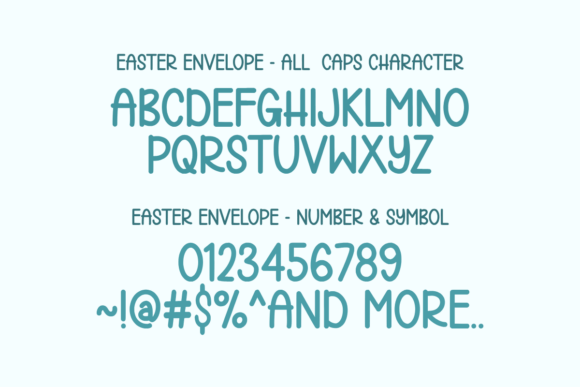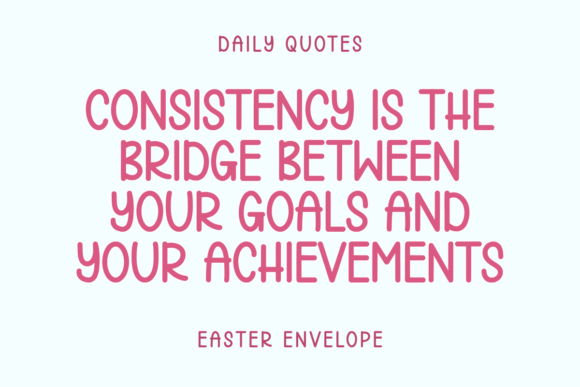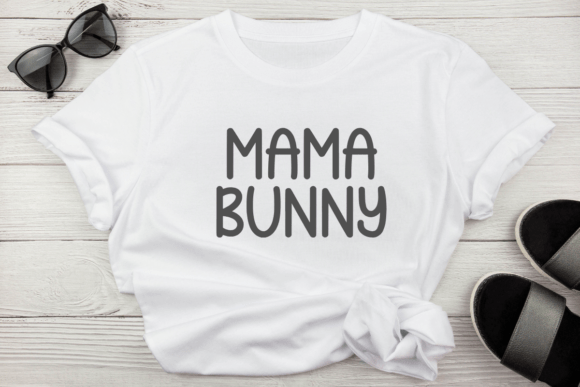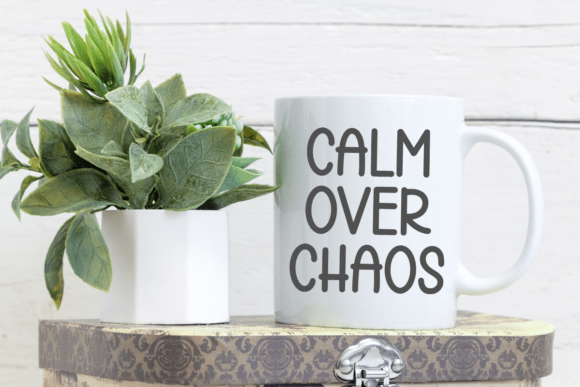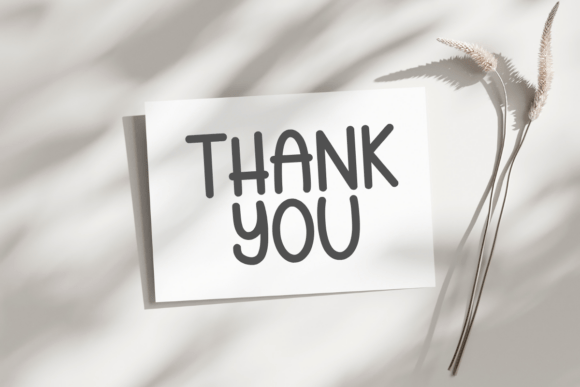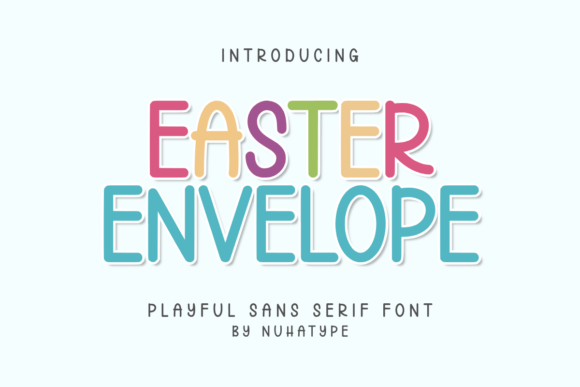
Easter Envelope Font: Elevate Your Designs with Elegant Minimalism
Are you a designer or crafter looking for a font that can add a touch of elegance and simplicity to your projects? Look no further than the Easter Envelope Font. This beautifully crafted font is designed to bring a sense of understated charm to a wide range of designs, from planners and journals to stickers, labels, and inspiring quotes.
The Characteristics of Easter Envelope Font
Easter Envelope Font is an elegantly minimalist, thin sans serif font that mirrors the charm of natural handwriting. Its delicate lines and curves create a sense of fluidity and movement, making it perfect for designs that require a touch of sophistication. The font’s simplicity and elegance make it an excellent choice for a variety of projects, including:
- Planners: Add a touch of elegance to your planners with Easter Envelope Font.
- Interior KDP: Create beautifully designed books and journals with this lovely font.
- Journals: Elevate your journal designs with the understated charm of Easter Envelope Font.
- Cricut Creations: Use Easter Envelope Font to add a touch of elegance to your Cricut projects, such as stickers, labels, and more.
- Inspiring Quotes: Create stunning quote designs with Easter Envelope Font.
Why Choose Easter Envelope Font?
So, why choose Easter Envelope Font for your designs? Here are just a few reasons:
- Versatility: Easter Envelope Font is a versatile font that can be used for a wide range of projects, from digital designs to print materials.
- Elegance: The font’s elegant and minimalist design makes it perfect for creating sophisticated and understated designs.
- Easy to Read: Easter Envelope Font is clear and easy to read, making it perfect for designs that require a high level of legibility.
Using Easter Envelope Font for Crafting
Easter Envelope Font is not just limited to digital designs; it’s also perfect for crafting. Here are some ideas for using Easter Envelope Font in your crafting projects:
- Tumblers: Add a touch of elegance to your tumblers with Easter Envelope Font.
- Mugs: Create beautifully designed mugs with Easter Envelope Font.
- Tote Bags: Elevate your tote bag designs with the understated charm of Easter Envelope Font.
- Stickers and Labels: Use Easter Envelope Font to create elegant stickers and labels for your crafting projects.
Tips for Getting the Most Out of Easter Envelope Font
Here are some tips for getting the most out of Easter Envelope Font:
- Experiment with Colors: Try pairing Easter Envelope Font with different colors to create unique and eye-catching designs.
- Play with Sizes: Experiment with different font sizes to create visual interest and hierarchy in your designs.
- Combine with Other Fonts: Try pairing Easter Envelope Font with other fonts to create interesting and dynamic designs.
Easter Envelope Font is a beautifully crafted font that can add a touch of elegance and simplicity to a wide range of designs. Its versatility, elegance, and ease of use make it an excellent choice for designers and crafters. Whether you’re creating digital designs or crafting projects, Easter Envelope Font is sure to elevate your designs and transform ordinary crafts into extraordinary artistic expressions.